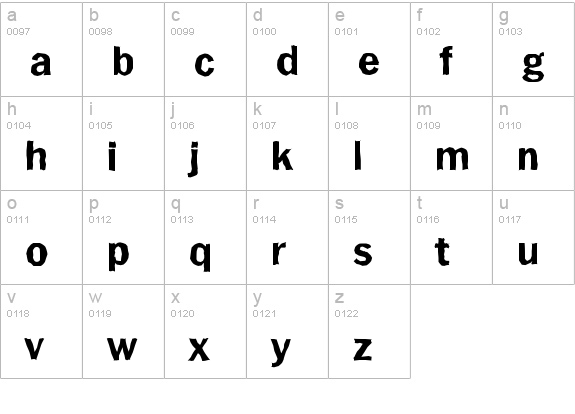
PlymouthAntique-Xbold-Regular Font Details
PlymouthAntique-Xbold-Regular is the standard, neutral variant in the PlymouthAntique typeface family \xE2\x80\x94 well suited to general body text, paragraphs, and standard typographic work.
PlymouthAntique-Xbold-Regular font is a timeless and elegant typeface that exudes sophistication and charm. Its bold and distinctive design makes it perfect for adding a touch of vintage flair to your projects. This font captures the essence of classic typography with its intricate details and refined strokes. Best of all, PlymouthAntique-Xbold-Regular font is available for free download at FontsMarket.com. Whether you're designing a nostalgic poster, creating a retro logo, or crafting a stylish invitation, this font will elevate your creations to the next level. Don't miss out on the opportunity to enhance your designs with this exquisite typeface, now easily accessible for free.